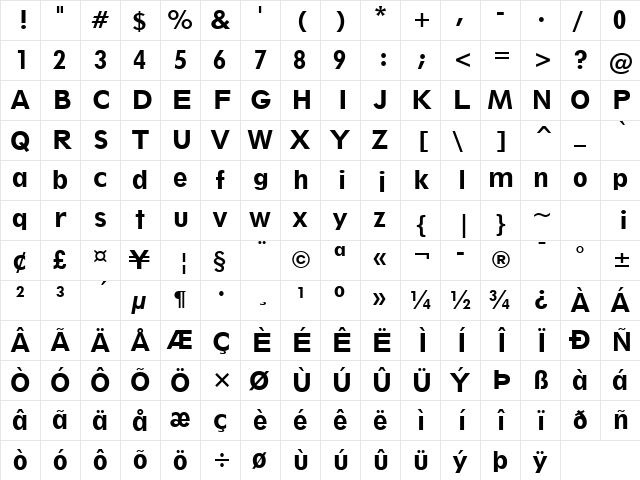
Geometr212 Bk BT Heavy
Design Context for Geometr212 Bk BT Typeface
Geometr212 Bk BT is a composed and adaptable typeface that performs quietly and consistently across a wide range of design contexts.